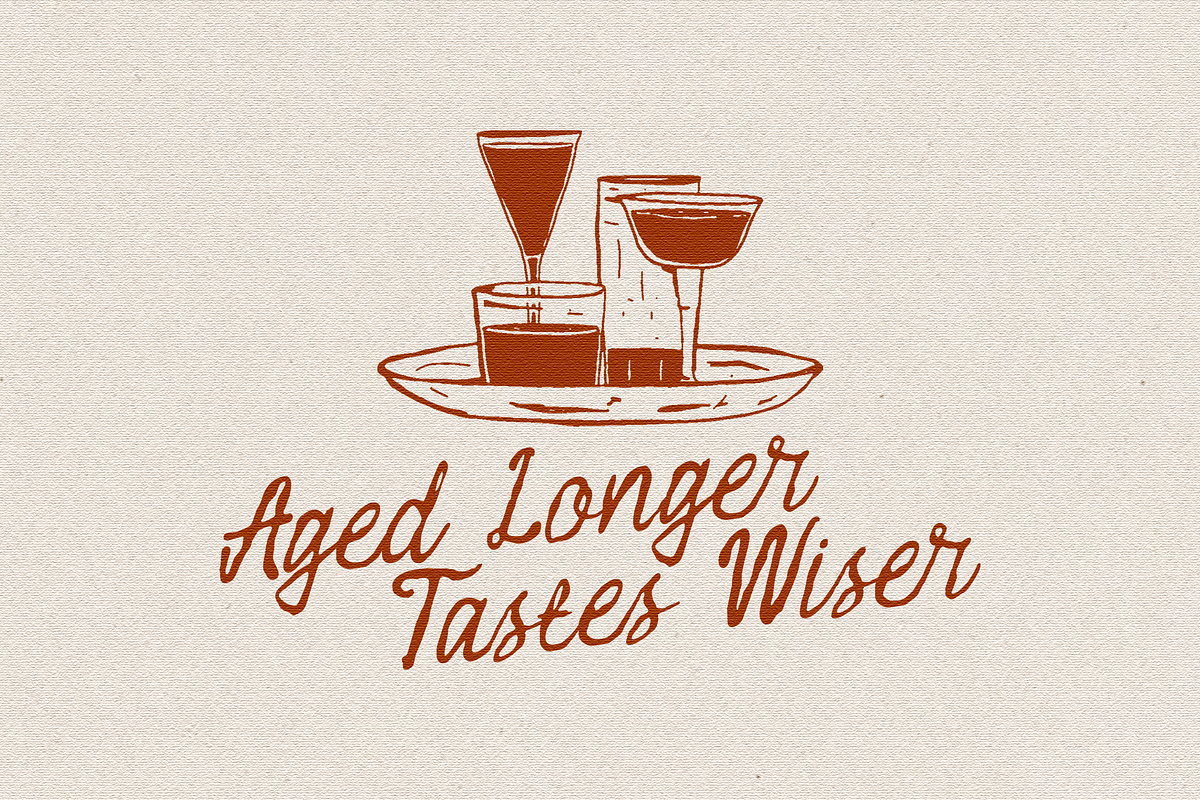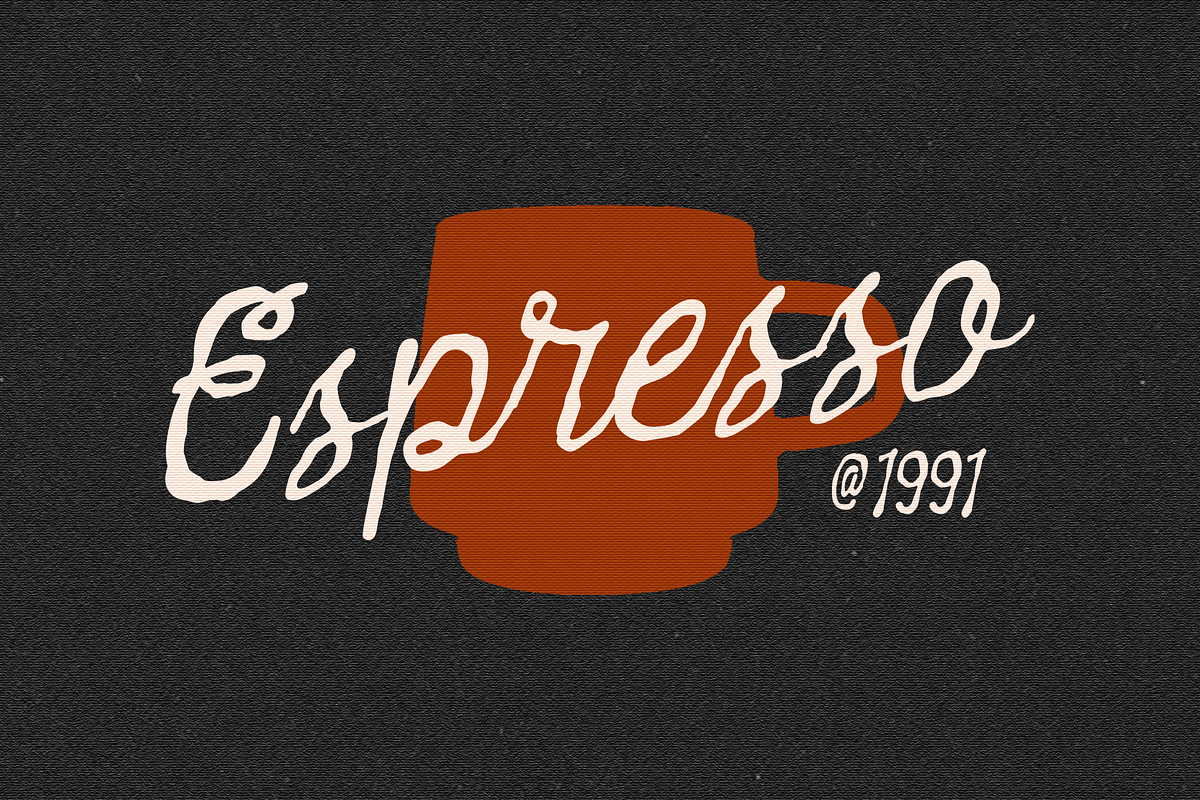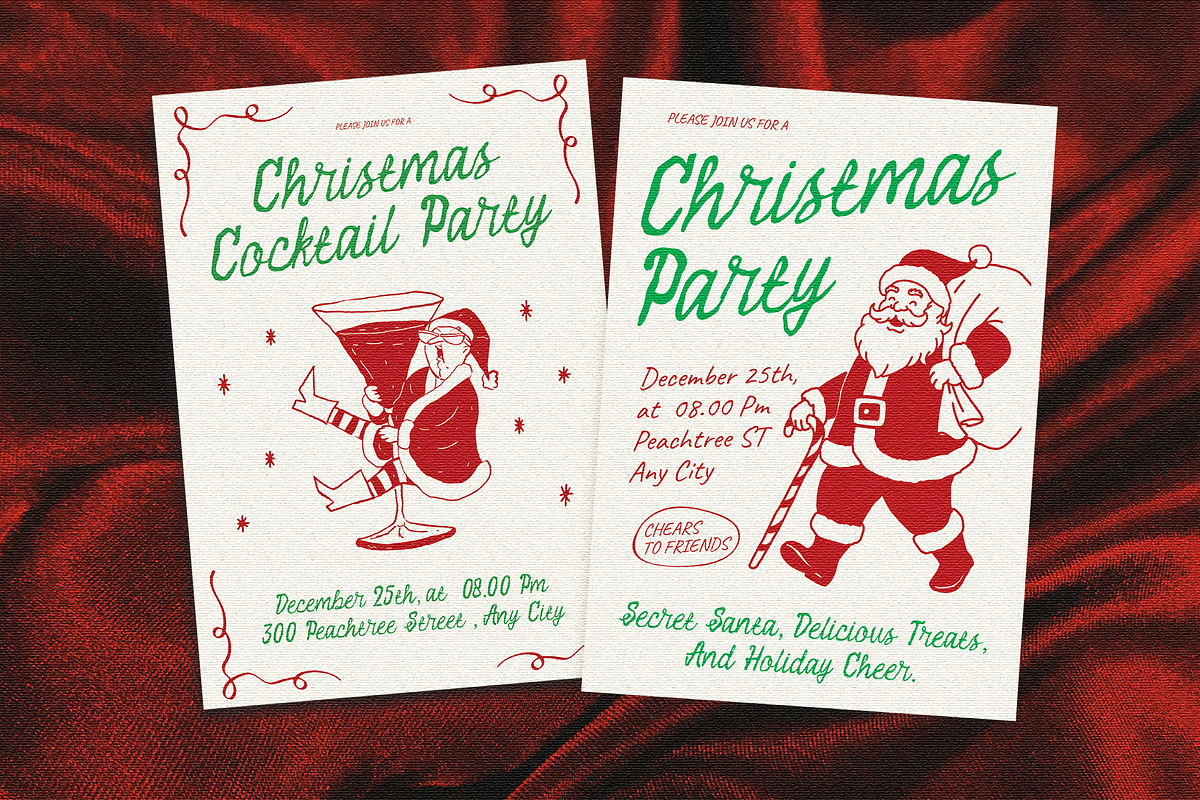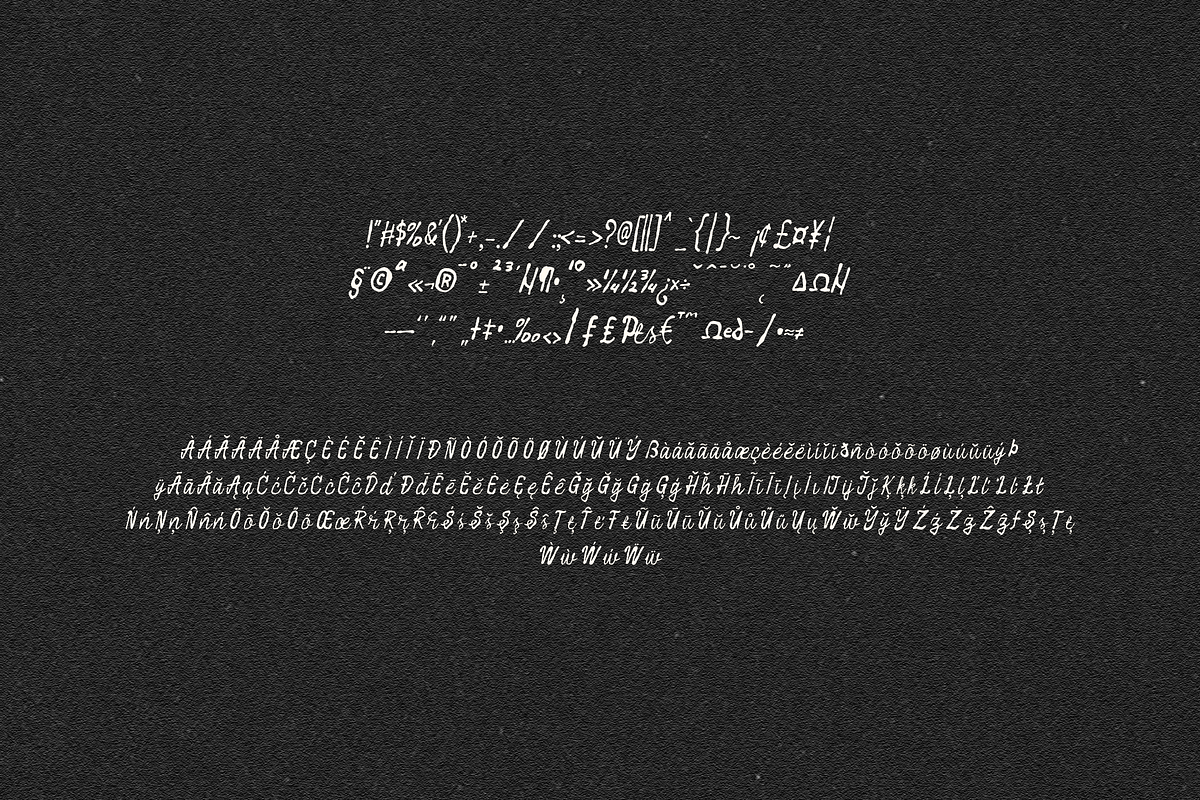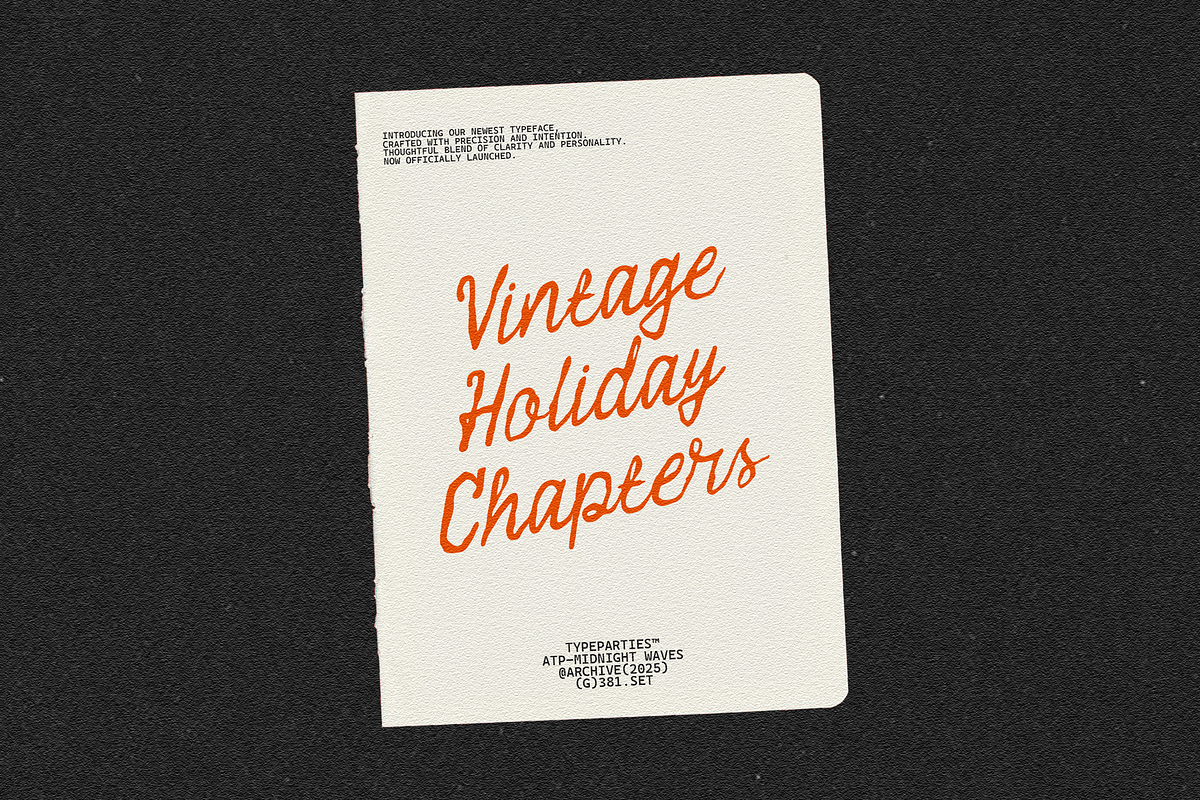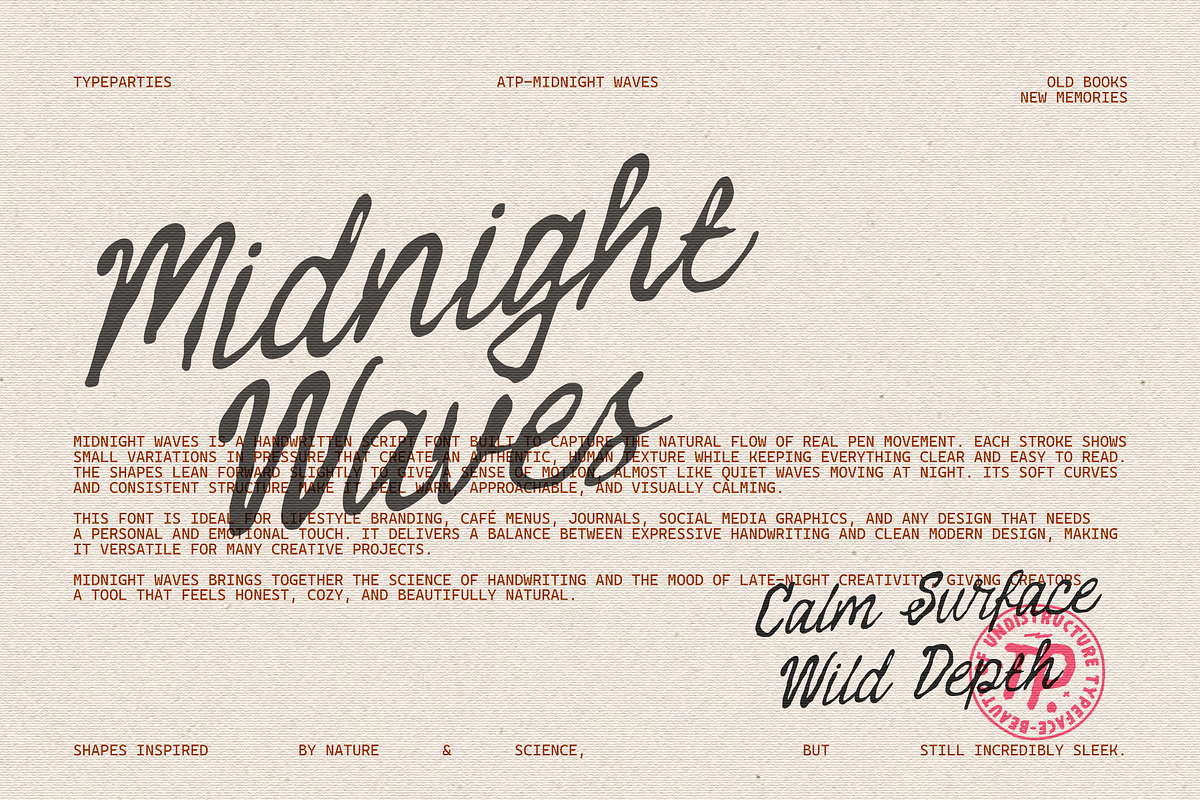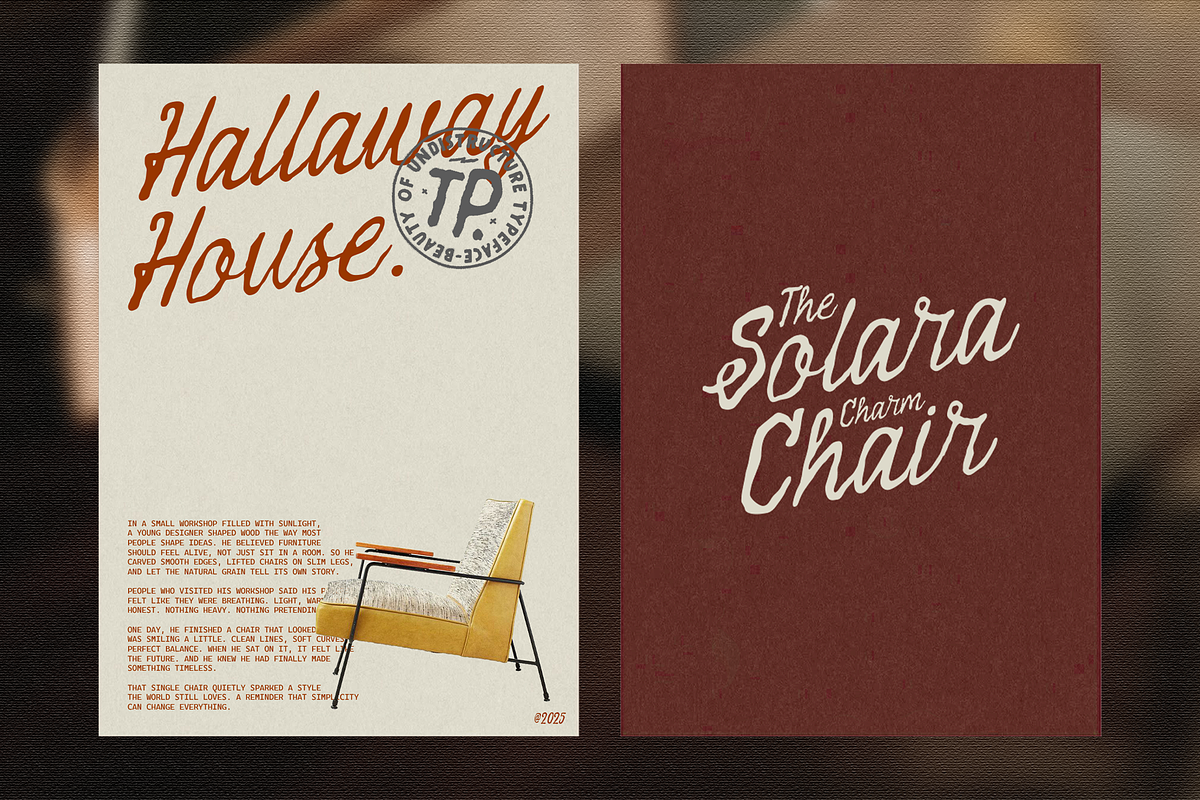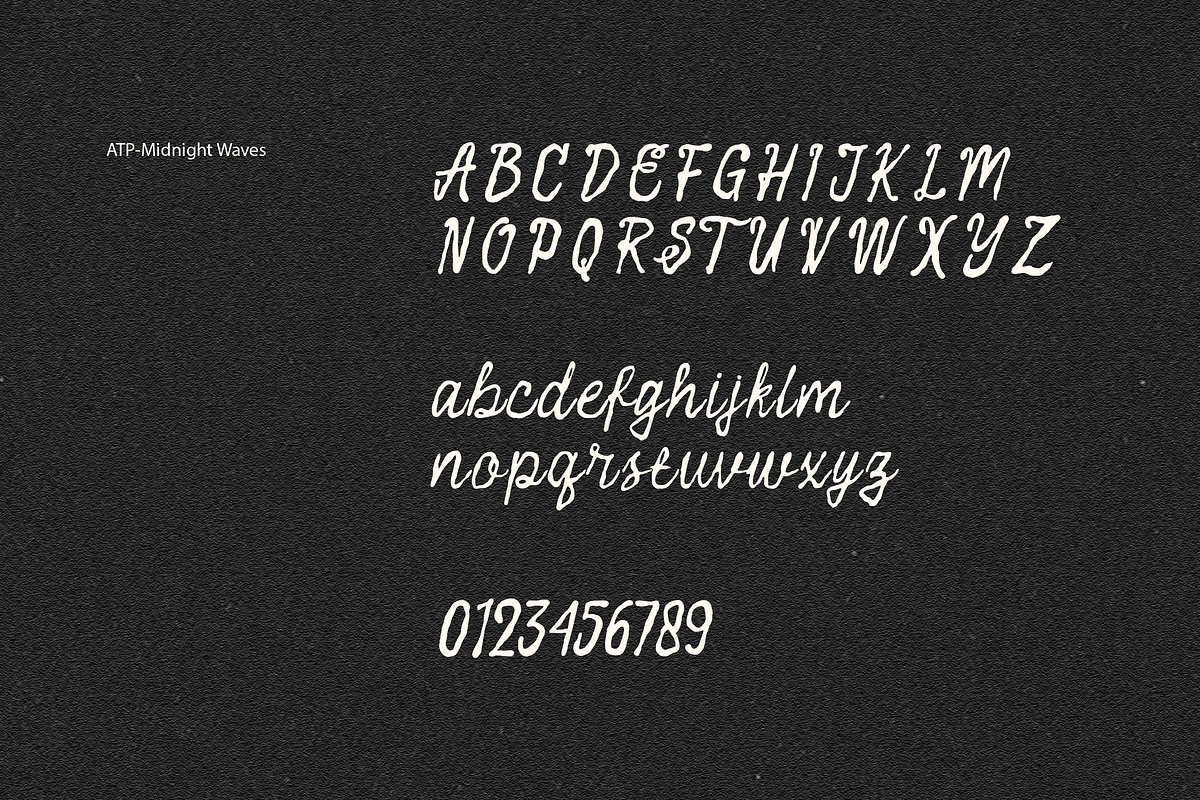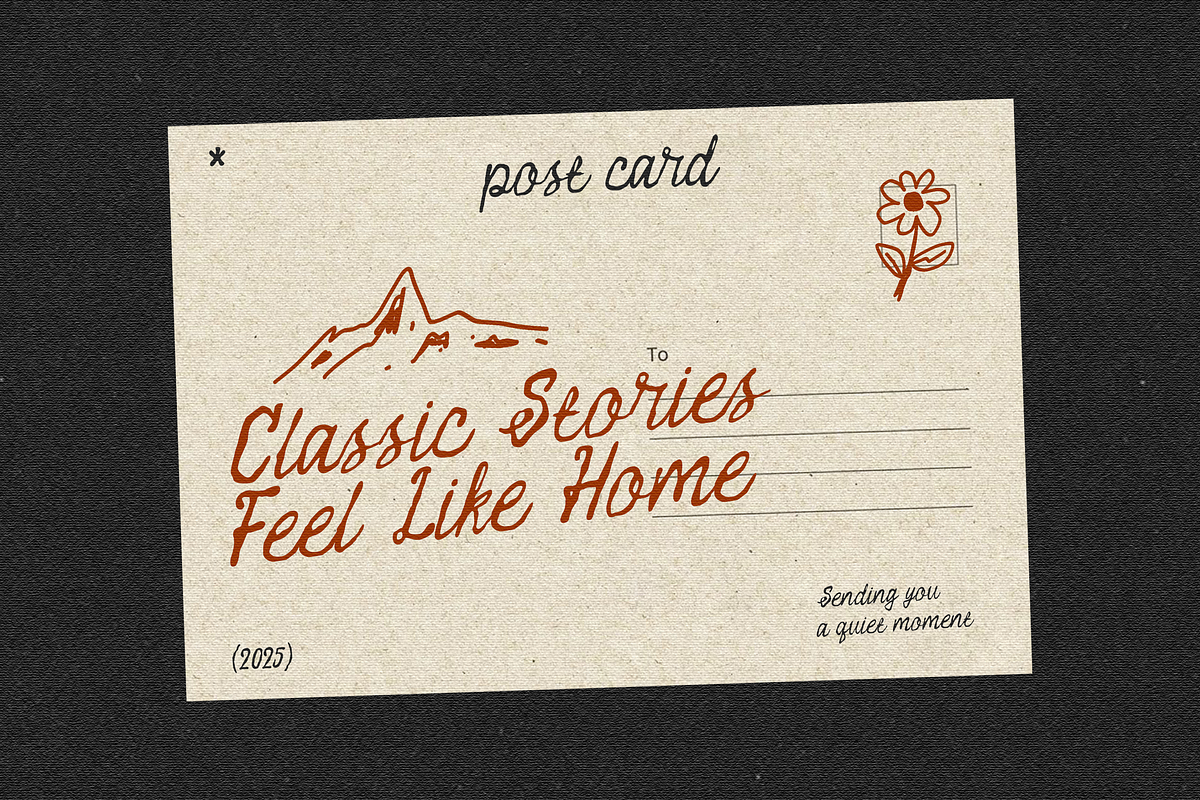
Midnight Waves - Handwritten Font
Midnight Waves is a smooth handwritten script font inspired by late-night journaling and relaxed coastal energy. Its fluid strokes, natural curves, and imperfect charm make it perfect for modern creators who want a personal and emotional touch in their designs. This font works beautifully for branding, logo signatures, product packaging, social media posts, lifestyle quotes, stationery, and editorial layouts. It brings a warm, approachable, and human feel to any project while staying trendy and relevant to today’s